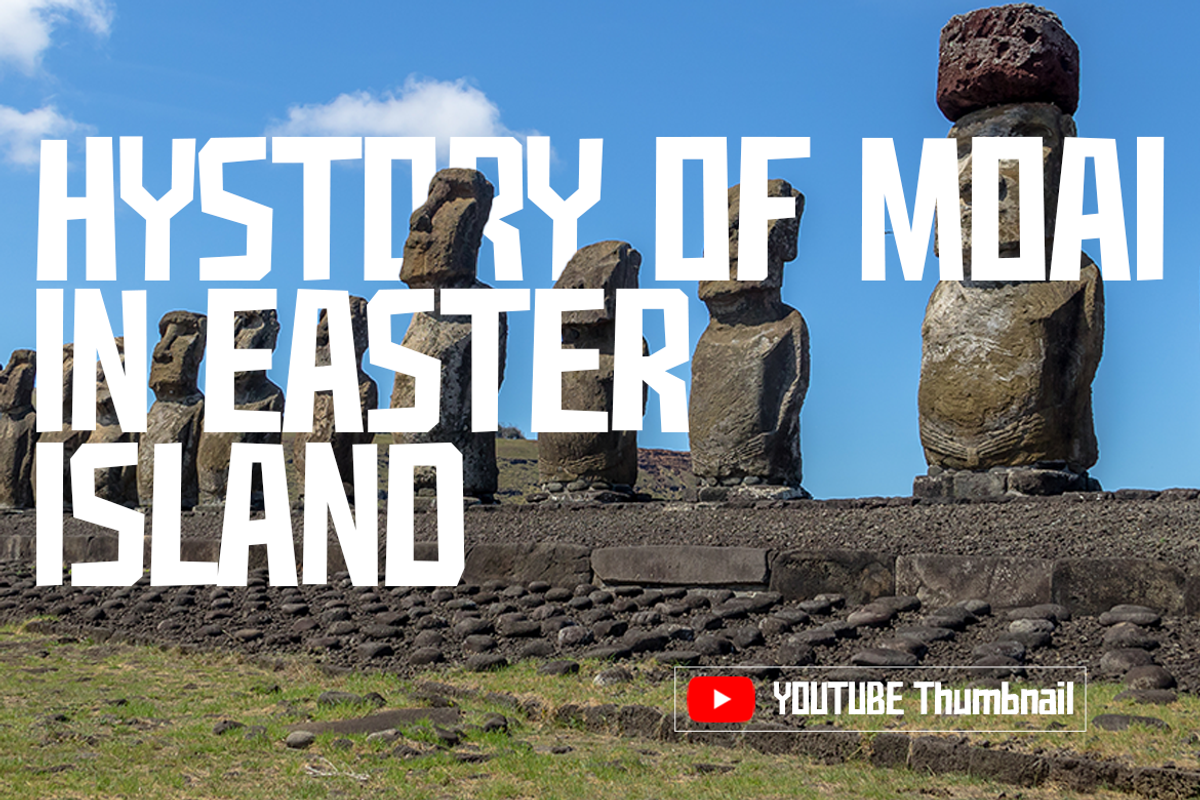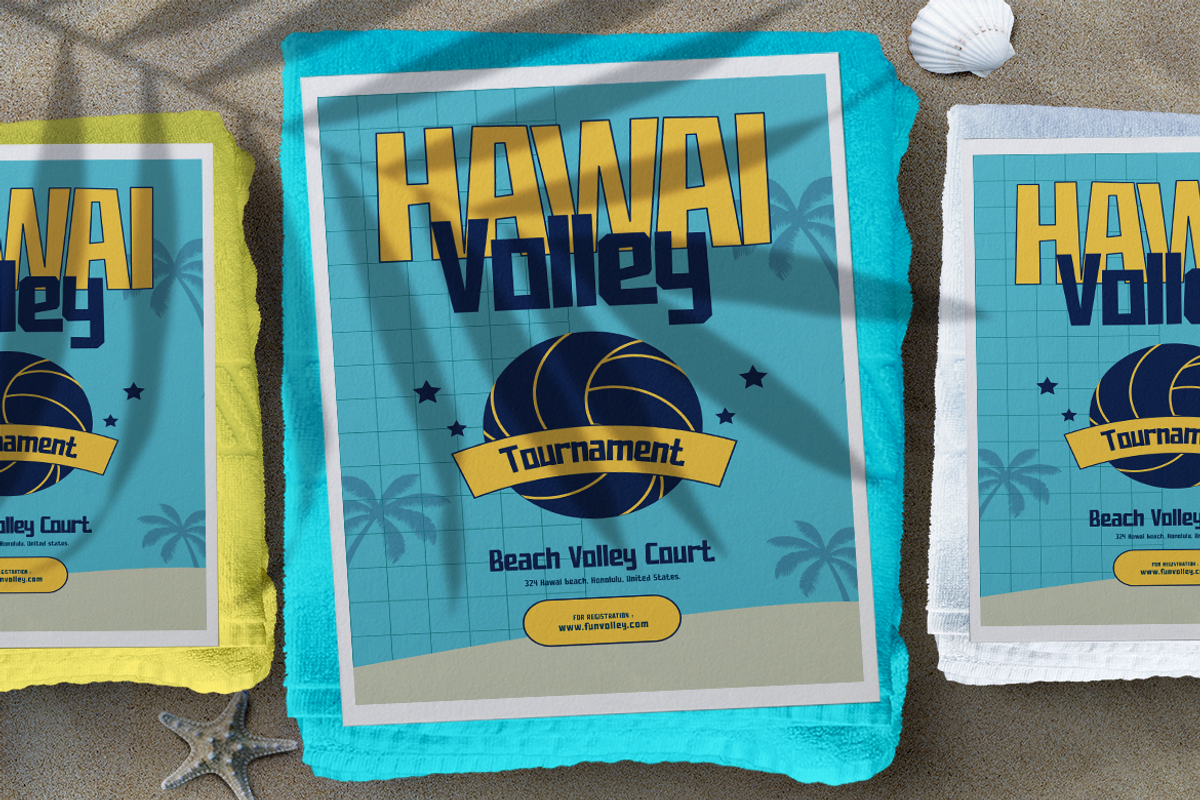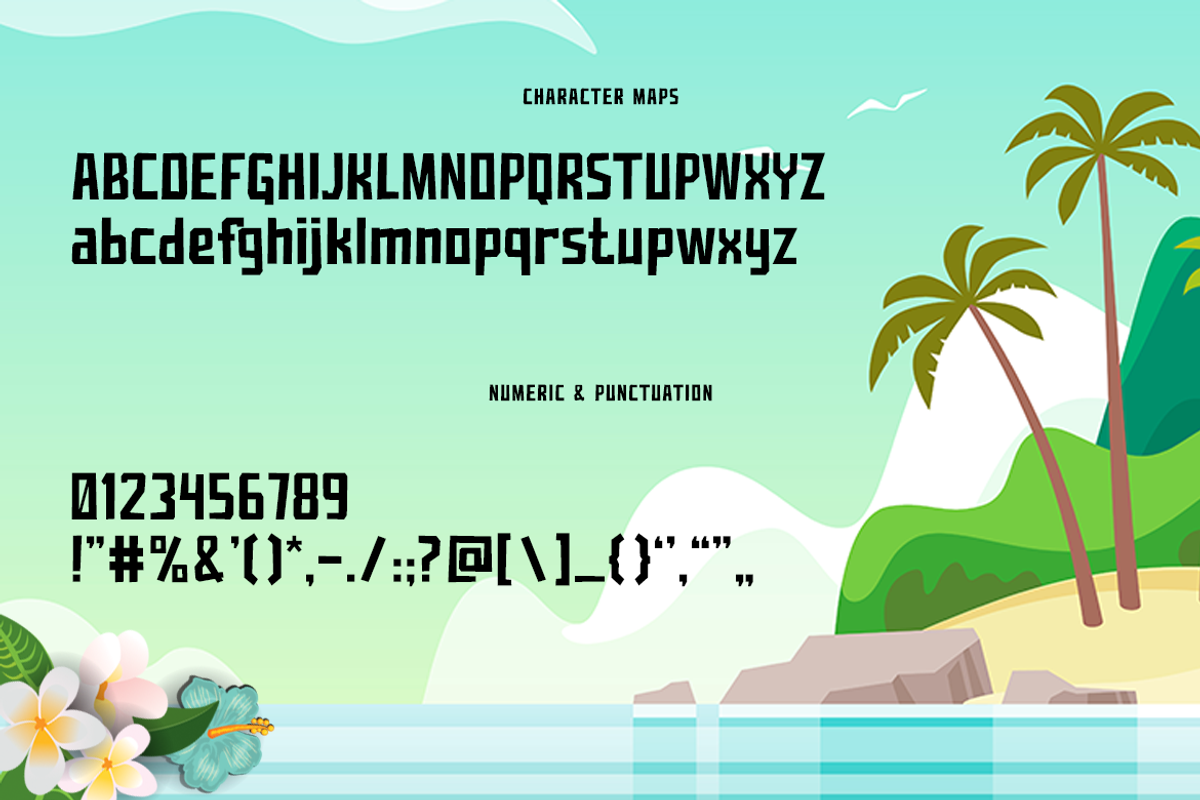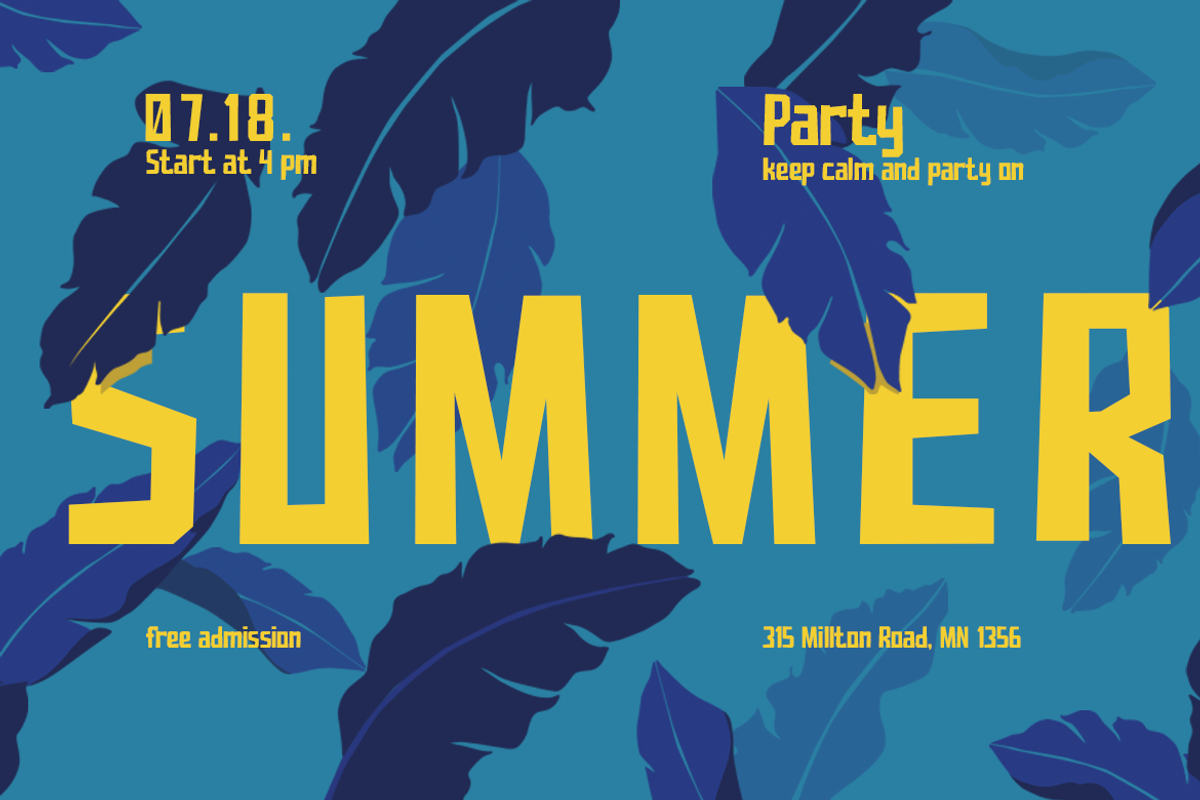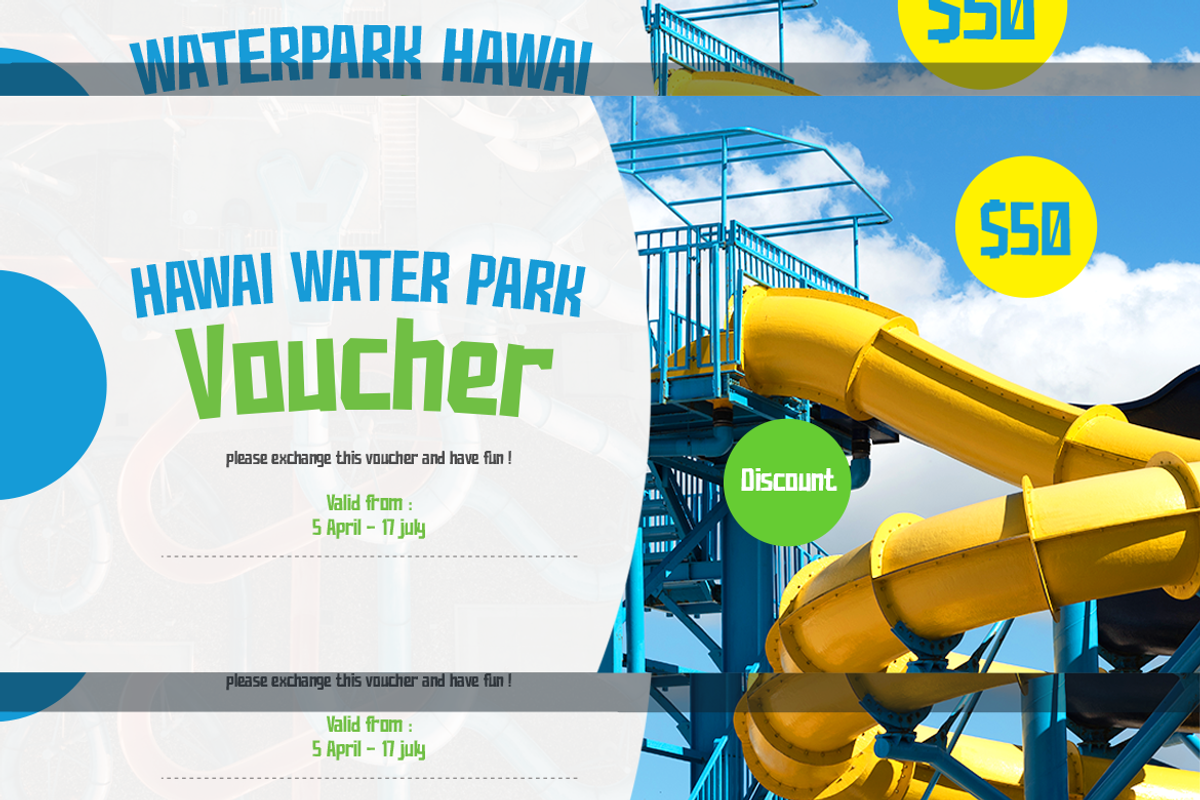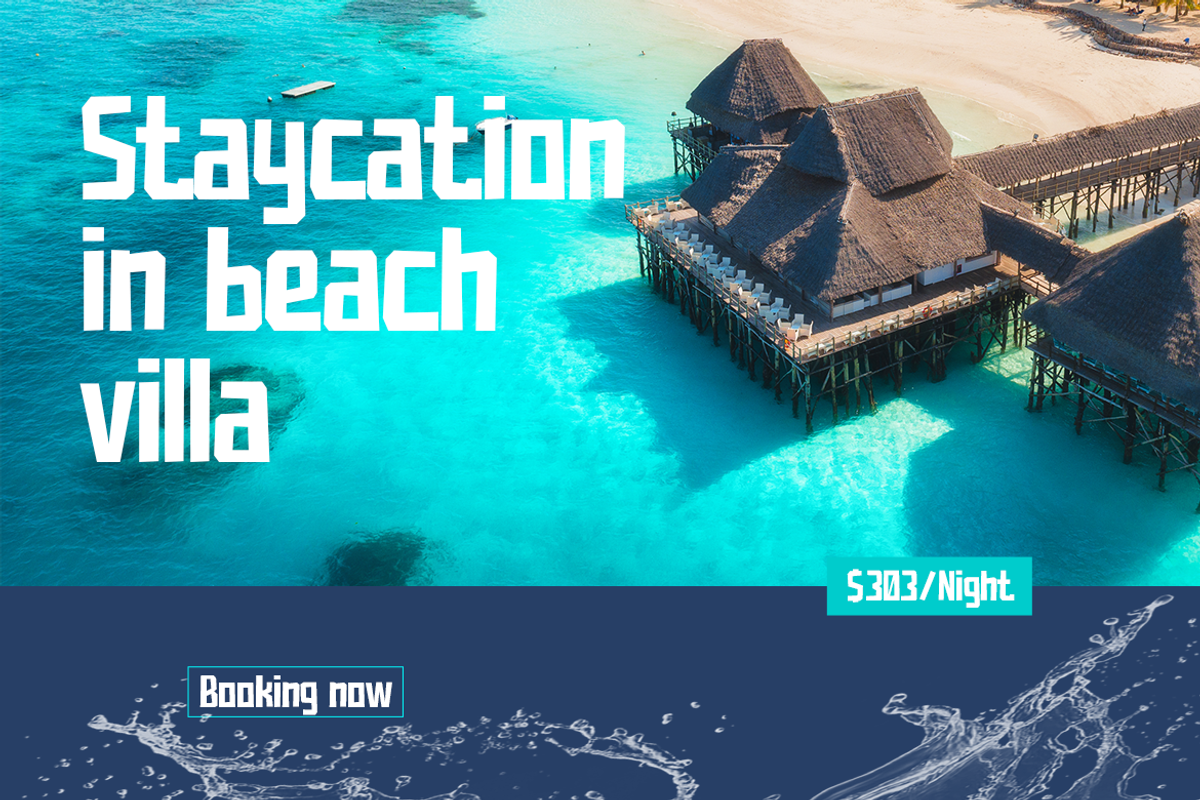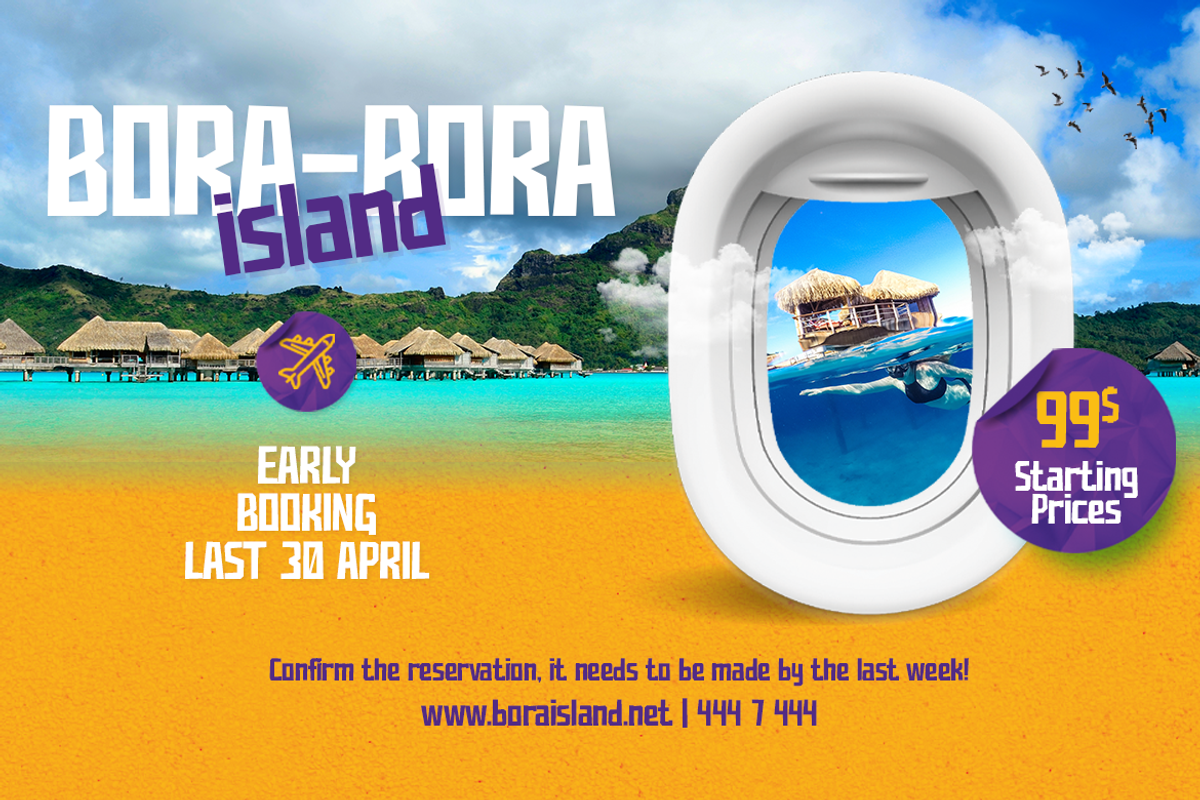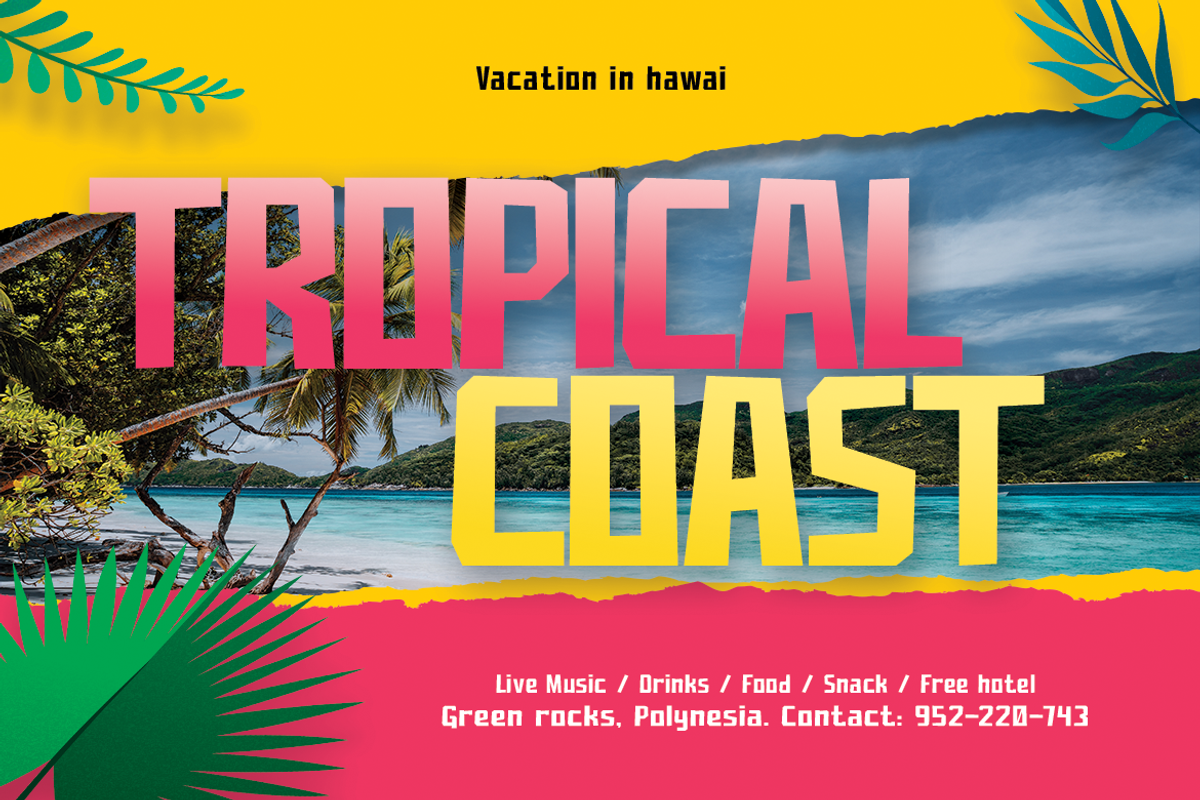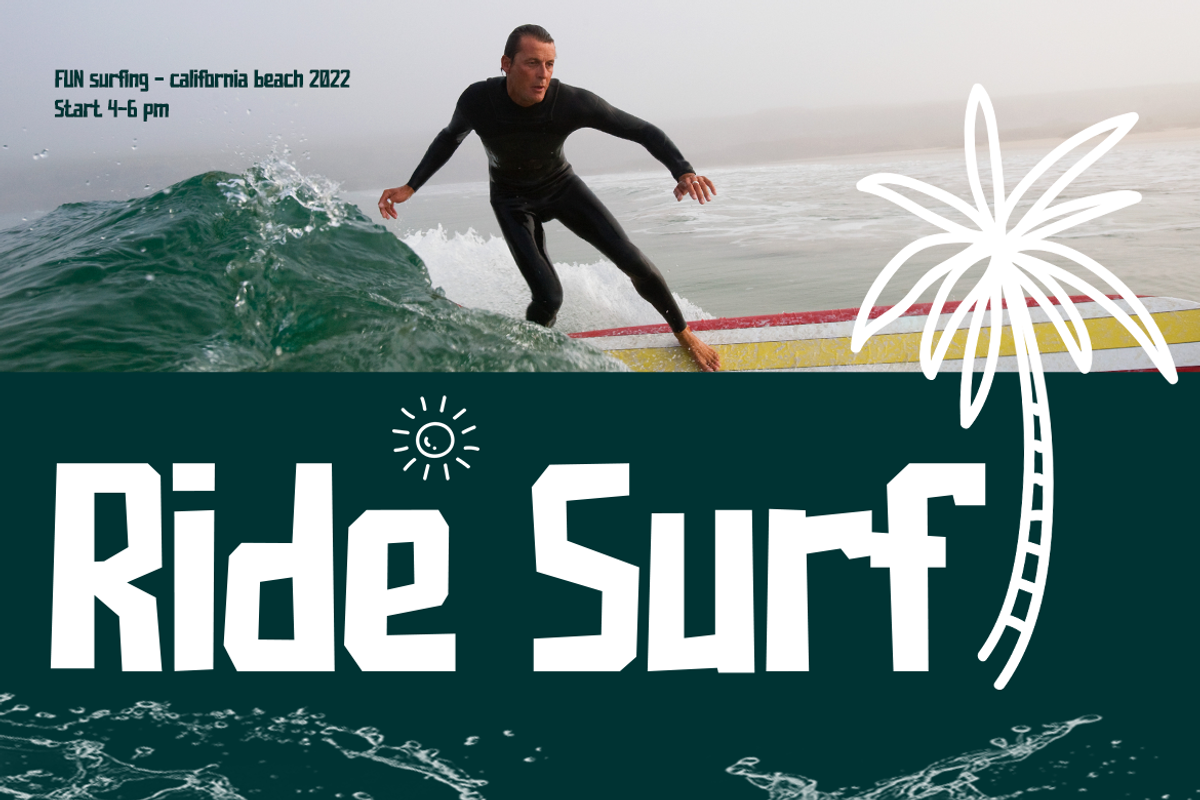
Hawainas - Tropical Cartoon Font
Hawainas - Tropical Display Font
A bold display font that bring fresh Hawaiian beach vibes in the project you made.
Suit perfect for tropical books market, online games, teens event posters, school supplies font, poster, movie title, youtube covers, youtube thumbnails, social media page covers, and so on...